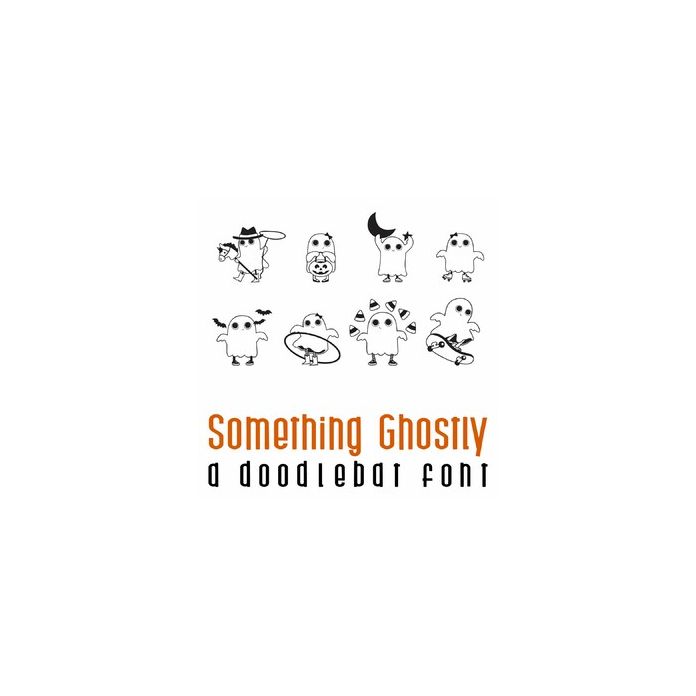
This fun doodlebat font features 26 little ghosts living their best life. Perfect for Halloween and creating fun cards, gifts, decor, crafts, scrap book pages, planner stickers and more!